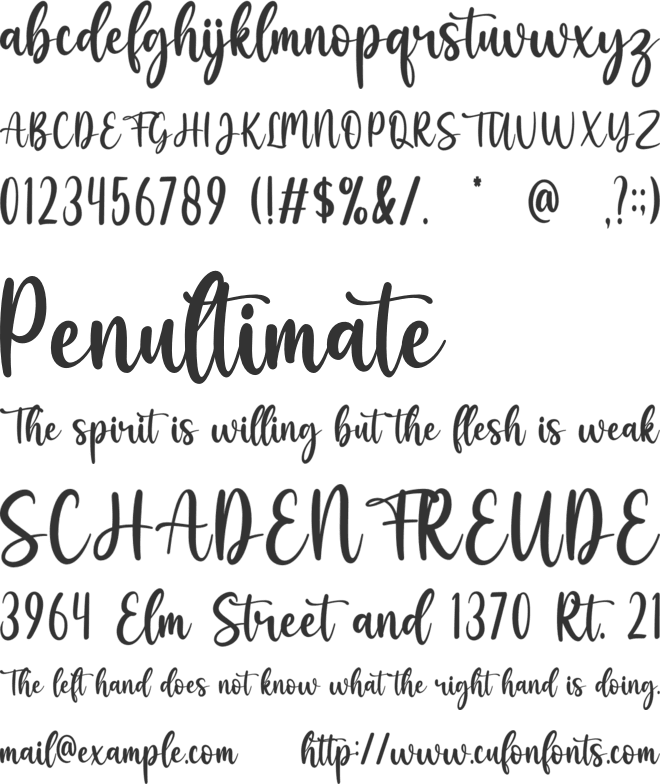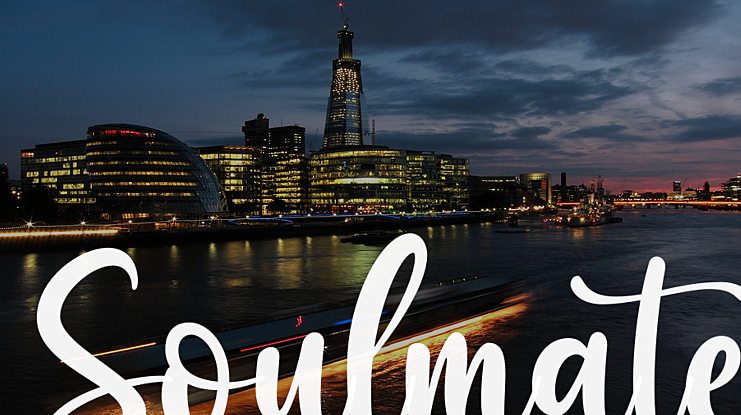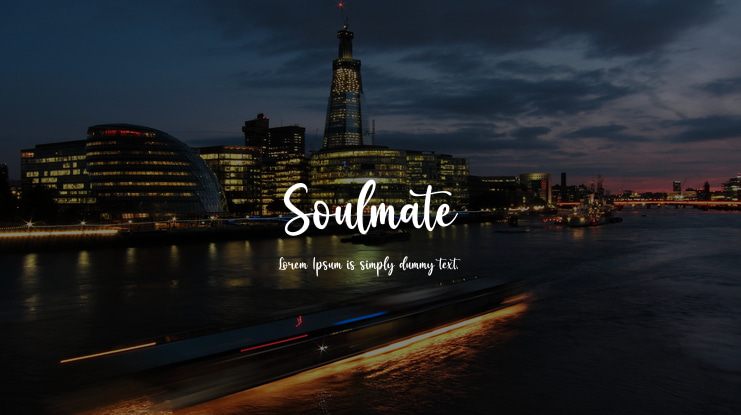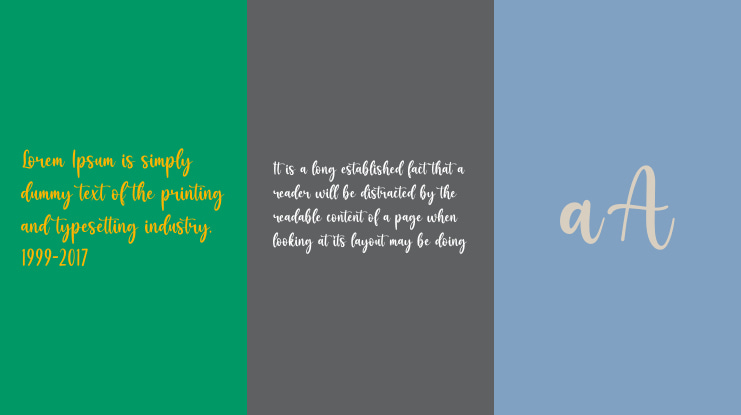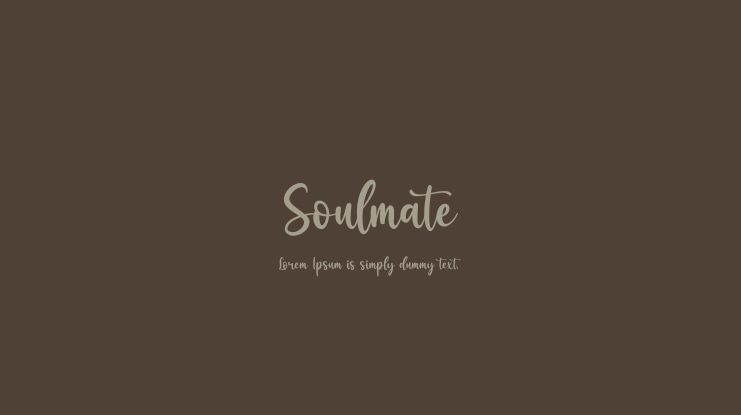
Soulmate Font
Aldi Raya Pradipta
This is a beautiful and quirky calligraphy typeface perfect for any design you wish to create. It looks stunning on wedding invitations, thank you cards, quotes, greeting cards, logos, business cards and every other design which needs a handwritten touch. This font is PUA encoded which means you can access all of the glyphs and swashes with ease!